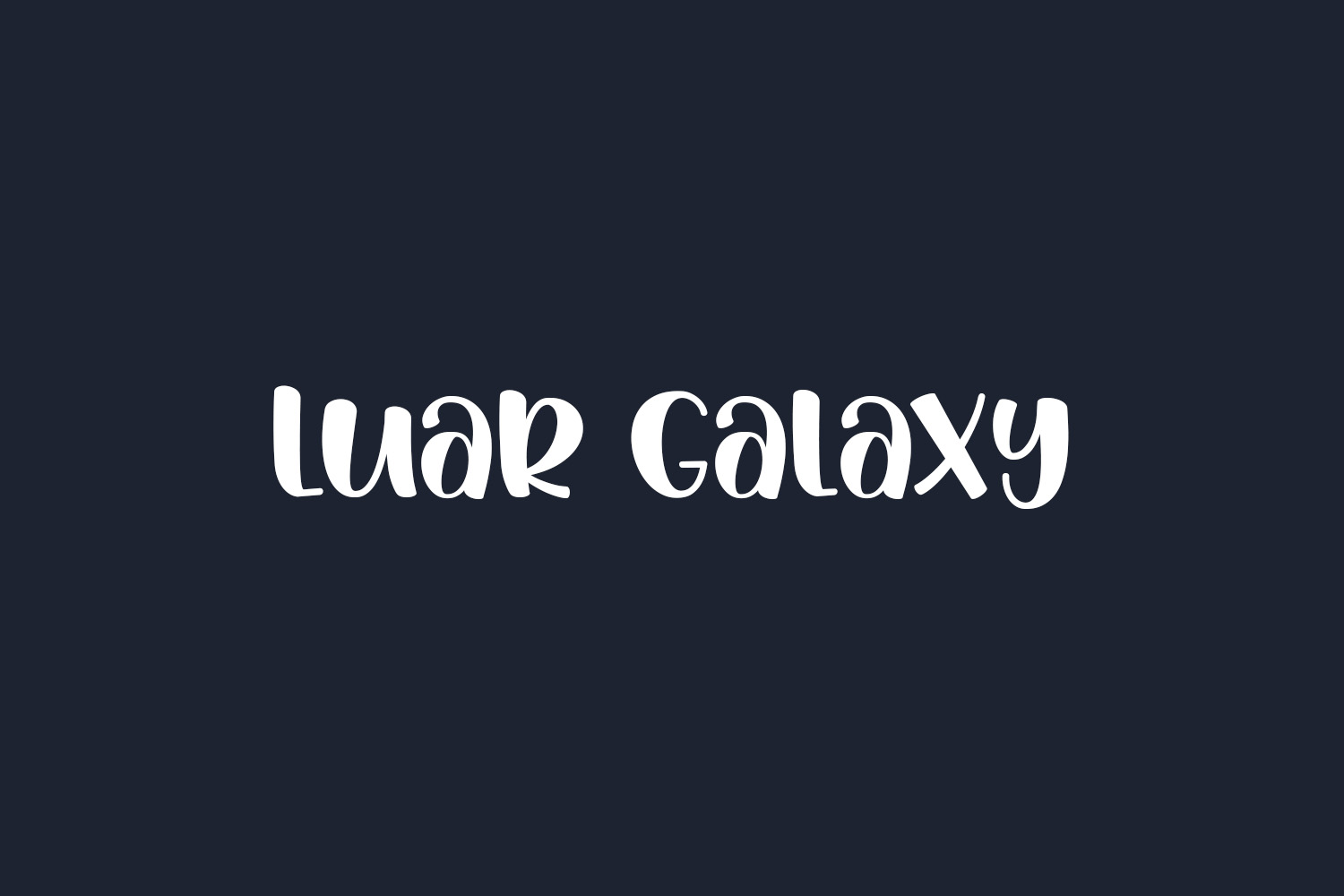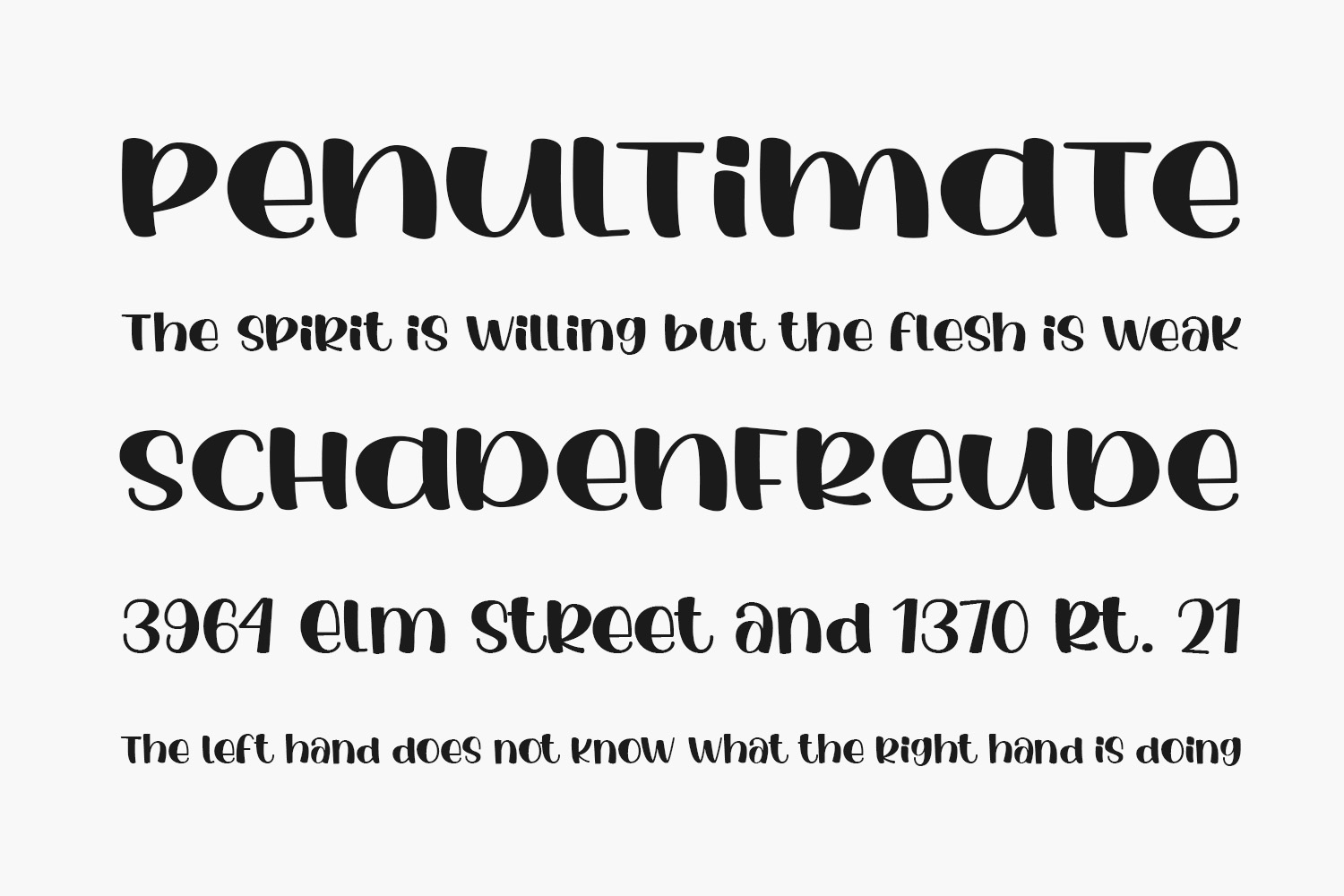
Luar Galaxy Free Font Family is an incredibly trendy and cool display font. It works great on plenty of design ideas, both children related or casual. Have fun with this beautiful font and explore its endless variations. Luar Galaxy Free Font Family was designed by Gilar Studio and is free for personal use only. Please purchase the full version for commercial use.
Luar Galaxy Regular The quick brown fox jumps over the lazy dog
Luar Galaxy Outline The quick brown fox jumps over the lazy dog
Luar Galaxy Shadow The quick brown fox jumps over the lazy dog